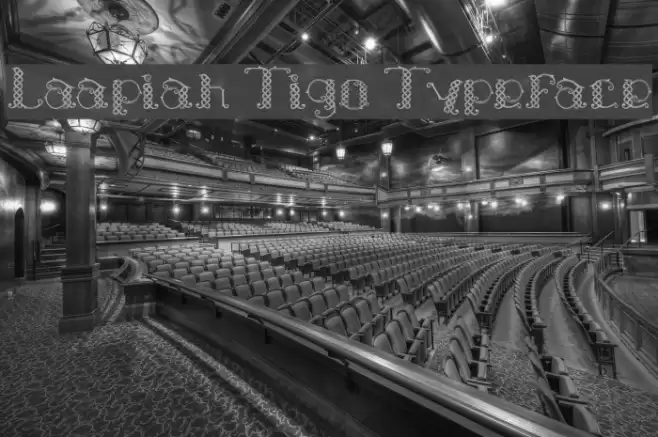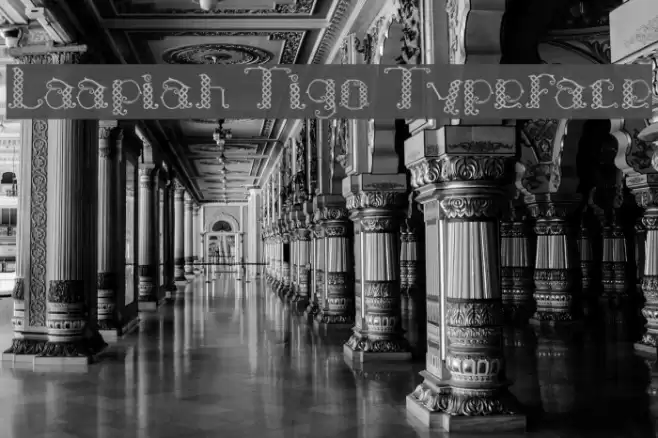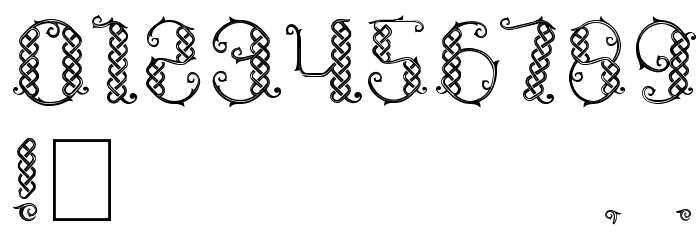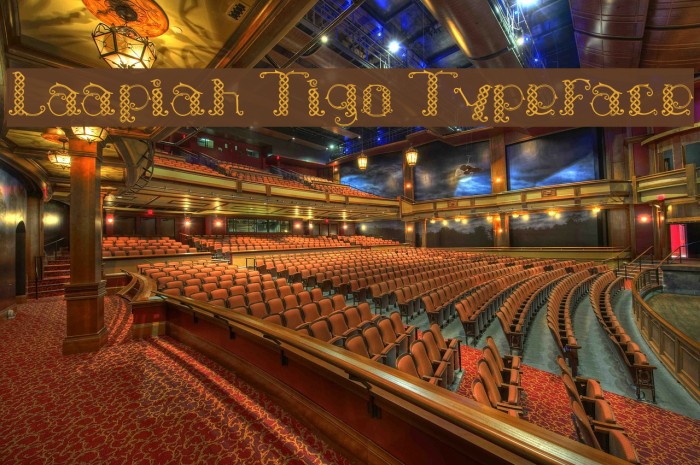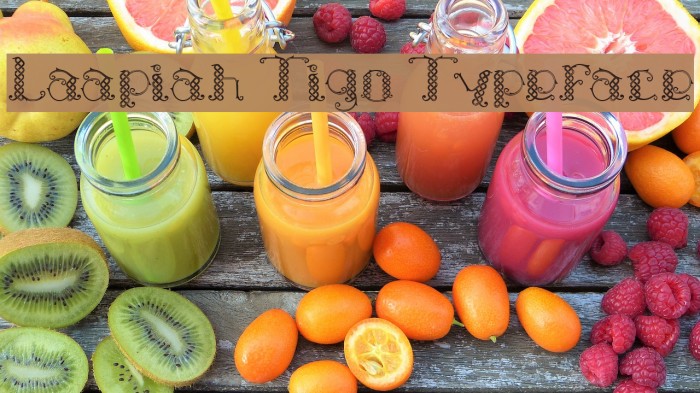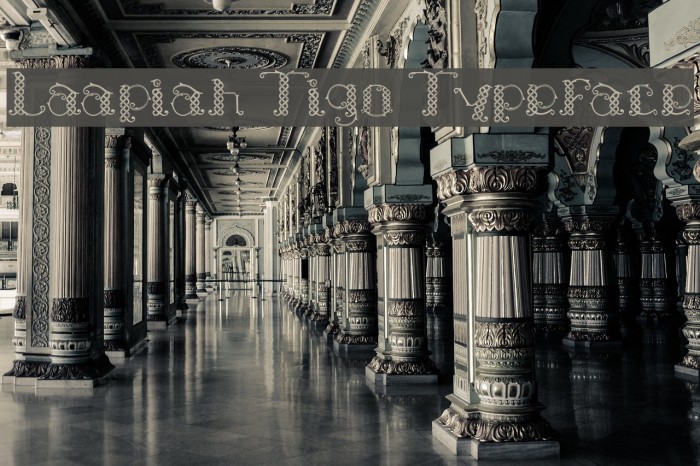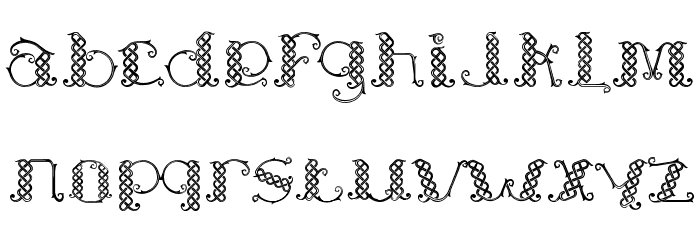
Laapiah Tigo Typeface Font
Laapiah Tigo Typeface Description
This typeface features an intricate and decorative design, characterized by its elaborate swirls and loops that form each letter. The letters are composed of a series of interwoven lines, creating a lattice-like appearance that is both ornate and visually striking. The uppercase and lowercase letters maintain a consistent style, with the lowercase being slightly more compact. Numbers and special characters follow the same decorative pattern, ensuring a cohesive look across all elements. The font's unique style makes it stand out, offering a distinct aesthetic that is both vintage and artistic.
An ornate and decorative typeface with intricate swirls and lattice-like patterns from Decorative fonts.
- Proposed Projects: Ideal for wedding invitations, vintage-themed posters, artistic branding, and decorative signage.
- Overall Style: Vintage
- Use Case: Logos, Headlines, Decorative text